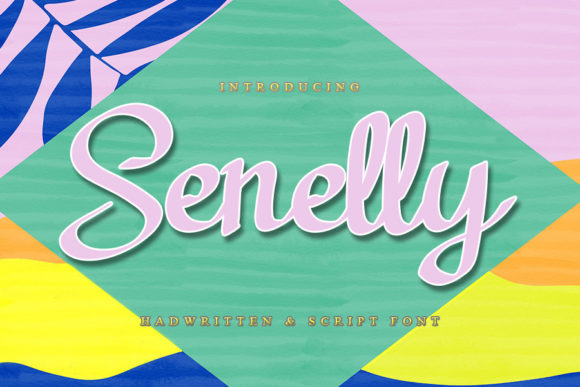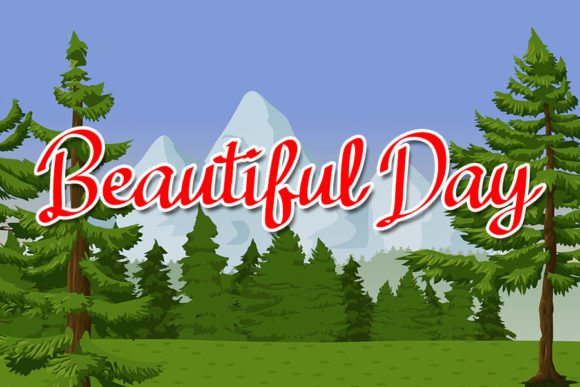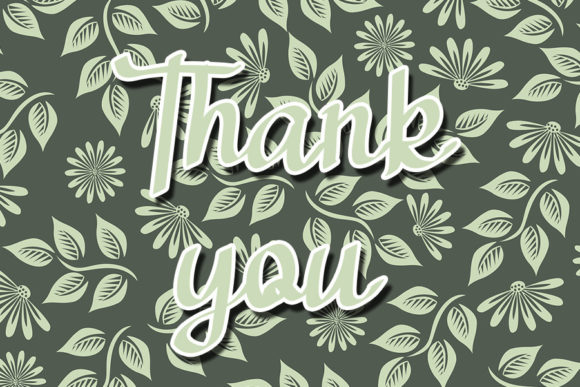
Senelly Font
About Senelly Font
Senelly is a cute script font with a relaxed theme, featuring a lovely style. No matter the topic, this font will be an incredibly asset to your fonts’ library, as it has the potential to elevate any creation.